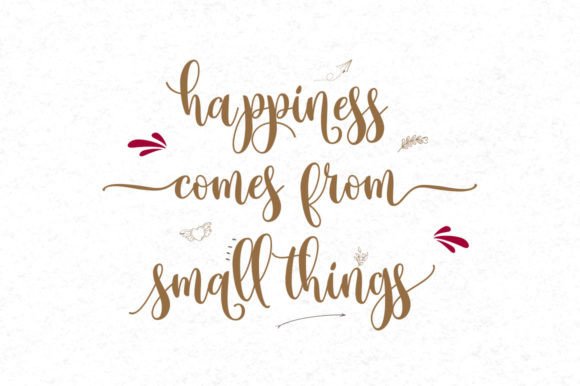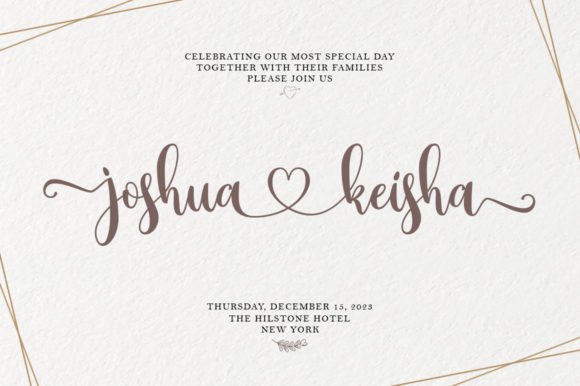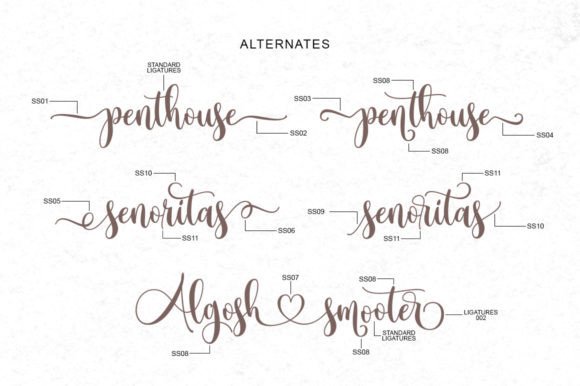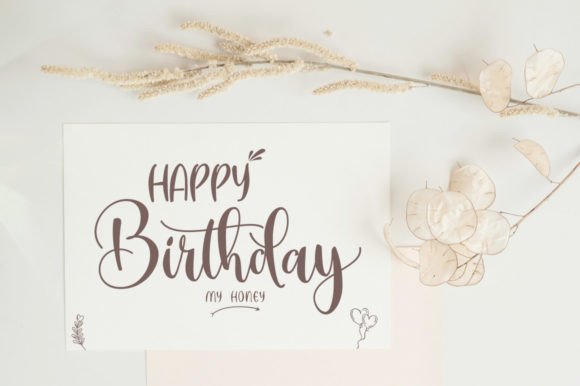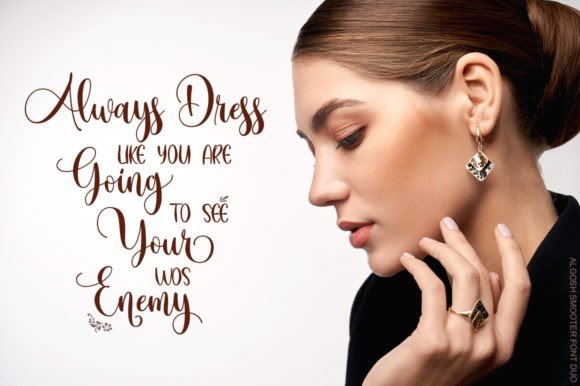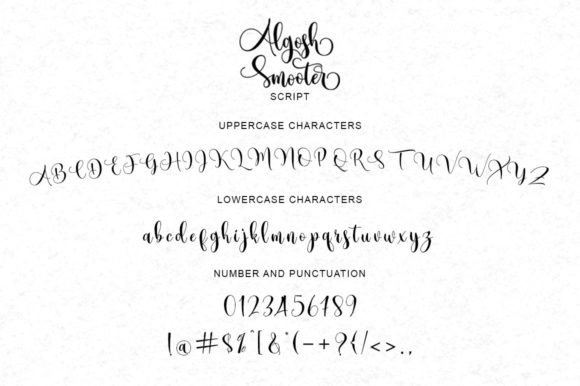
There’s nothing quite like the thrill of staring at a blank page, waiting for the perfect font to come to life. You’ve got a vision, a feeling, a message to convey, and the right font can make all the difference. For designers and creatives, finding the perfect script can be a game-changer. That’s where the Algosh Smooter Font duo comes in – a stunning combination of script and handwritten sans that’s sure to add a touch of romance to any project.
Whether you’re crafting wedding invitations, designing thank you cards, or creating wall art, the Algosh Smooter Font is the perfect choice for adding a personal, emotional touch. And for designers, its value lies in its versatility and timeless appeal. With the Algosh Smooter Font, you can create projects that are both beautiful and meaningful, making it a valuable addition to any design toolkit.
- Unique Characteristics: The Algosh Smooter Font features a unique blend of modern and vintage elements, with a smoothened, rounded design that is both elegant and readable.
Algosh Smooter Font Review
I’ve had the chance to work with the Algosh Smooter Font, and overall, I’m impressed with its unique features. Here are some things that ✨ work well:
- It’s perfect for creative projects that need a touch of personality. The font’s irregularity adds a nice human touch to designs.
- Algosh Smooter Font is highly customizable. You can easily adjust the font size, line height, and letter spacing to fit your design needs.
- The font is well-suited for headings and titles. Its boldness and uniqueness make it stand out on a page.
- Algosh Smooter Font may not be the best choice for body text. The irregularities can make it difficult to read, especially at smaller font sizes.
- It’s not as versatile as some other fonts, so you may find yourself limited in your design options.
Overall, I think the Algosh Smooter Font is a great addition to any designer’s toolkit. While it may not be perfect for every project, it’s a great choice when you need something unique and eye-catching. With a little creativity, you can use it to create some truly stunning designs.
Tips for Getting the Most Out of the Algosh Smooter Font
Pair the Algosh Smooter Font with other fonts to create a unique and visually appealing design.
Use the font in conjunction with bold and italic text to add emphasis and hierarchy to your design.
The Algosh Smooter Font is ideal for:
Headlines and titles
Body text for digital products and marketing materials
Logo design and branding
The Great Vibes Font is a modern, elegant script font that is perfect for creating a sophisticated and luxurious feel in designs. It is ideal for use in branding, advertising, and editorial content where a touch of sophistication is required.
Compared to Algosh Smooter Font, Great Vibes Font has a more refined and polished appearance, making it suitable for high-end designs. While Algosh Smooter Font has a more playful and casual feel, Great Vibes Font is better suited for formal and professional applications.
Q: Does the Algosh Smooter Font support Unicode and languages other than English?
Yes, the Algosh Smooter Font supports Unicode and a wide range of languages, including Latin, Cyrillic, Greek, and many others. The font includes glyphs for over 100 languages, making it a versatile choice for global projects.